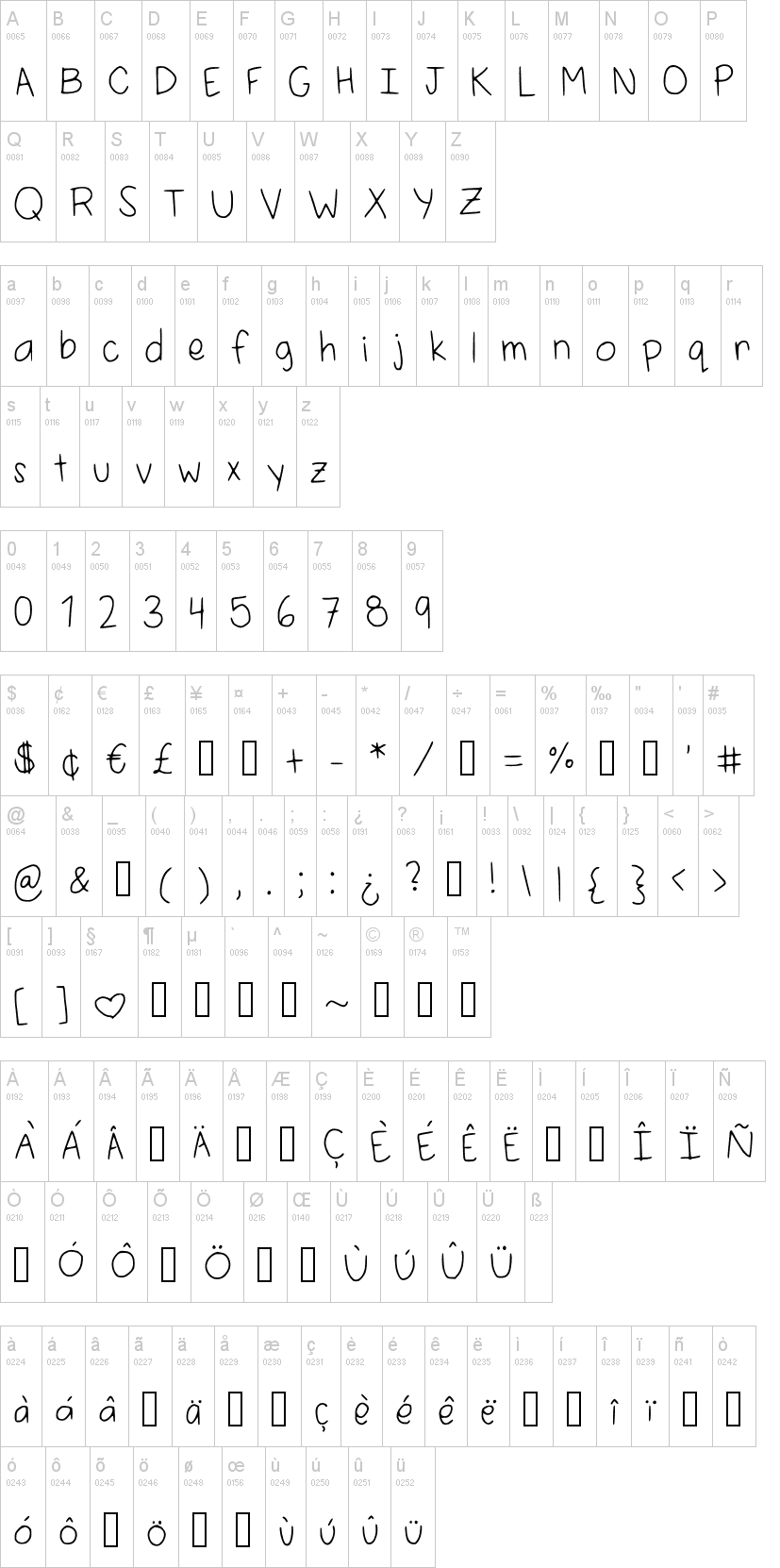
Шрифт Selenas Handwriting
The § symbol (alt+0167 on Windows) is a heart. That's kind of the only special modification that I've made. I have most symbols, but not ^ for some reason. WELL OKAY THEN.